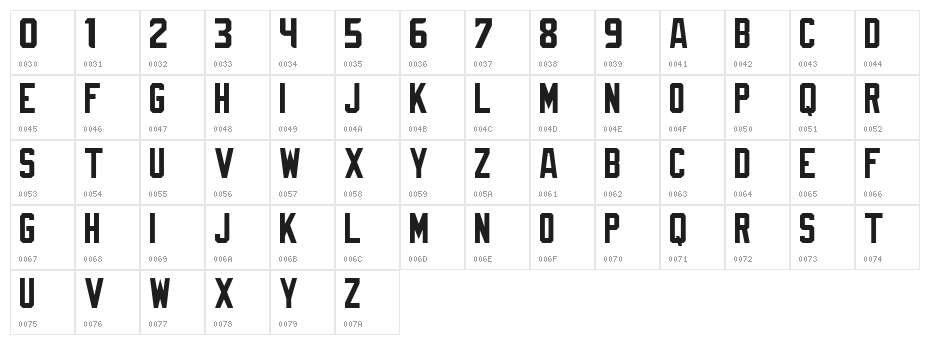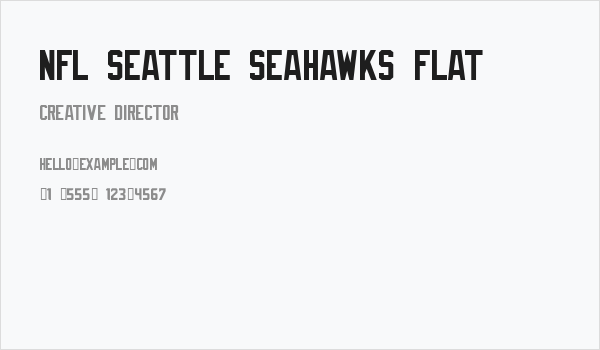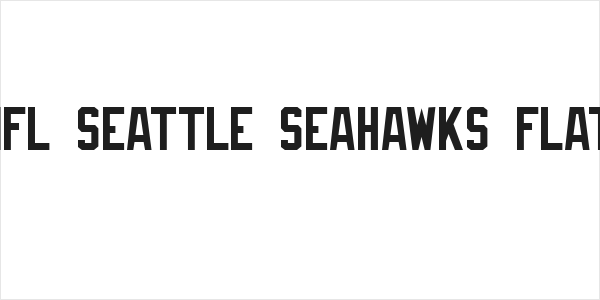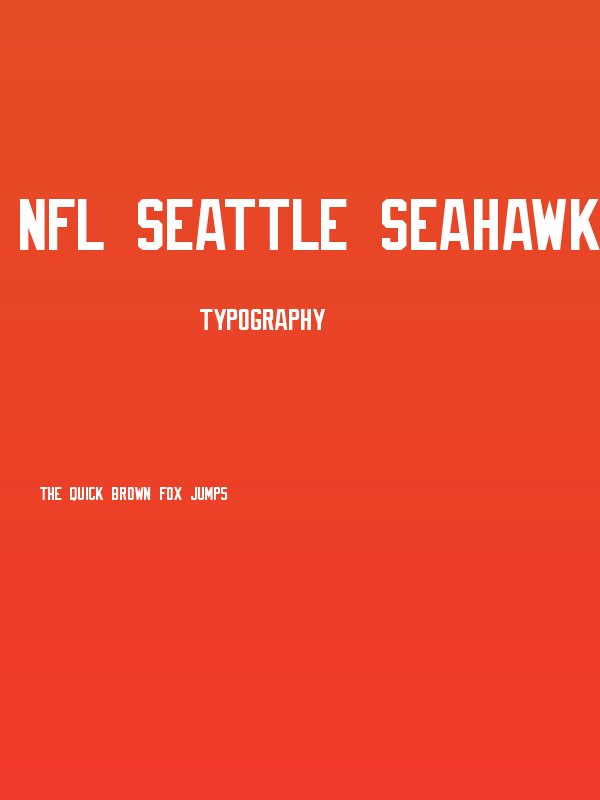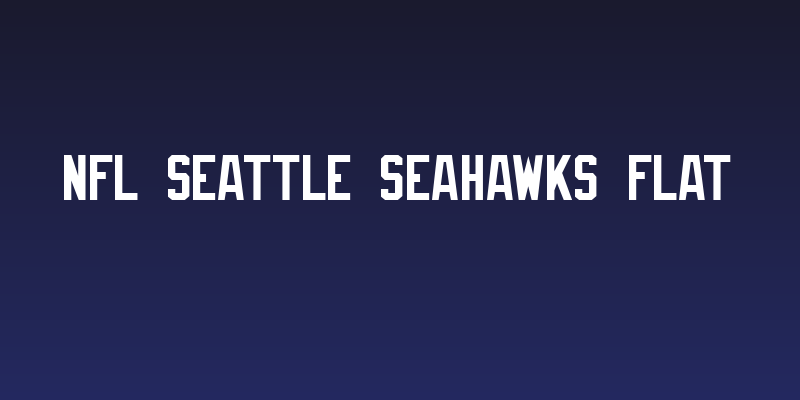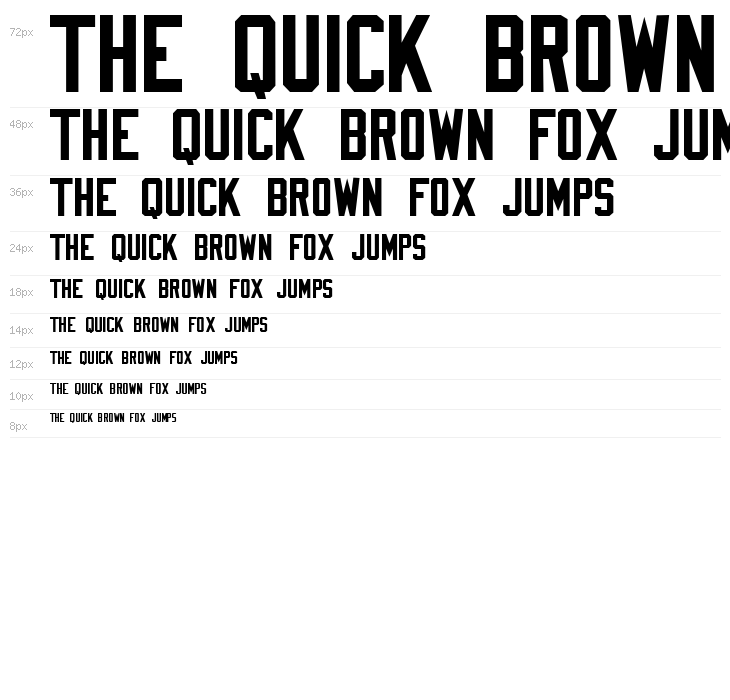
NFL Seattle Seahawks Flat Font
NFL Seattle Seahawks Flat Description
This font features a bold, geometric design with strong, angular lines and a modern aesthetic. The uppercase letters are uniform in height, creating a cohesive and structured appearance. The numerals are equally bold, maintaining the same geometric style, which ensures consistency across all characters. The font's design is reminiscent of sports branding, with a focus on clarity and impact. Its robust and solid form makes it ideal for conveying strength and determination. The characters are tightly spaced, enhancing the compact and powerful look of the font.
| Use Case | Logos, Headlines |
| Proposed Projects | Perfect for sports team logos, athletic apparel branding, and dynamic advertising campaigns. |